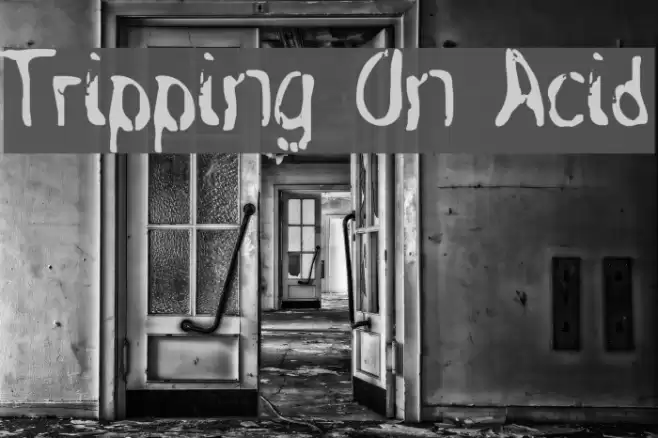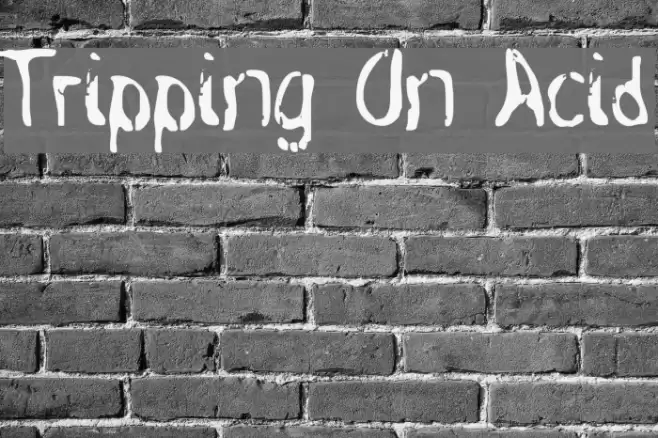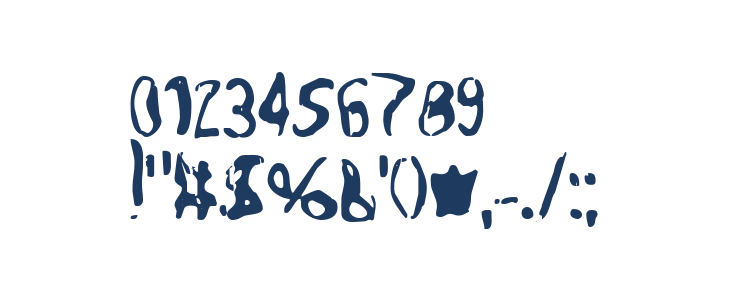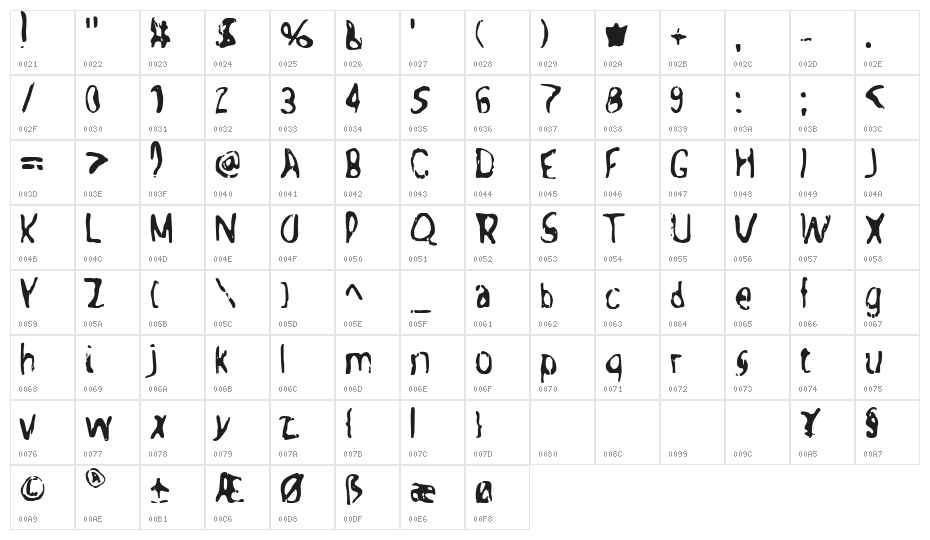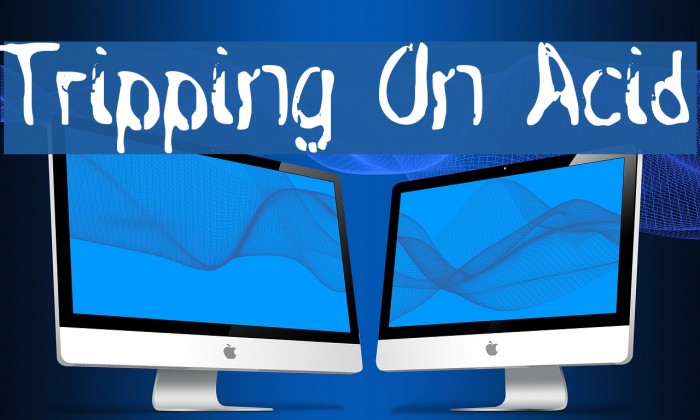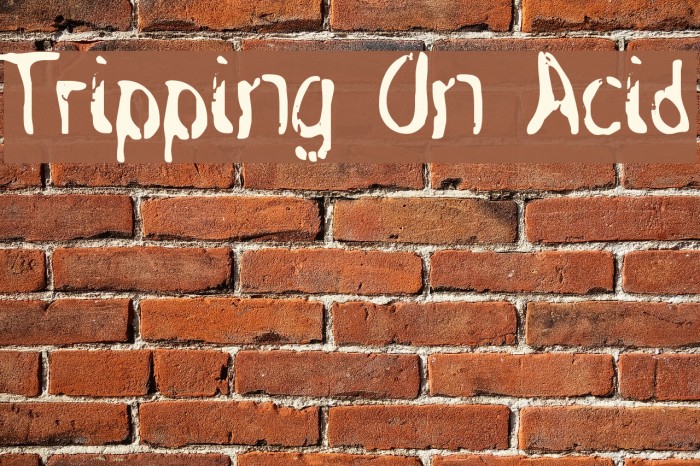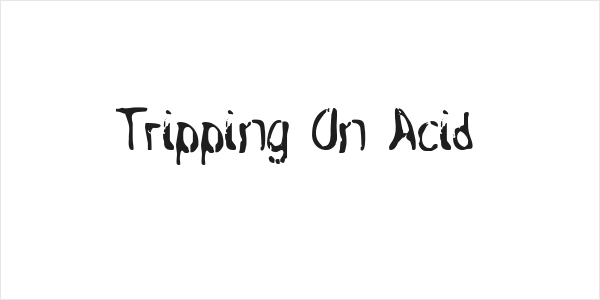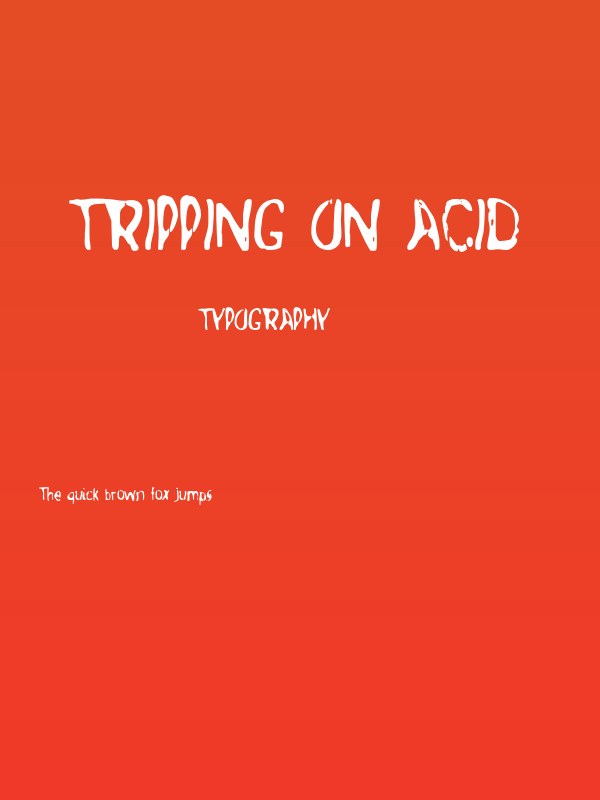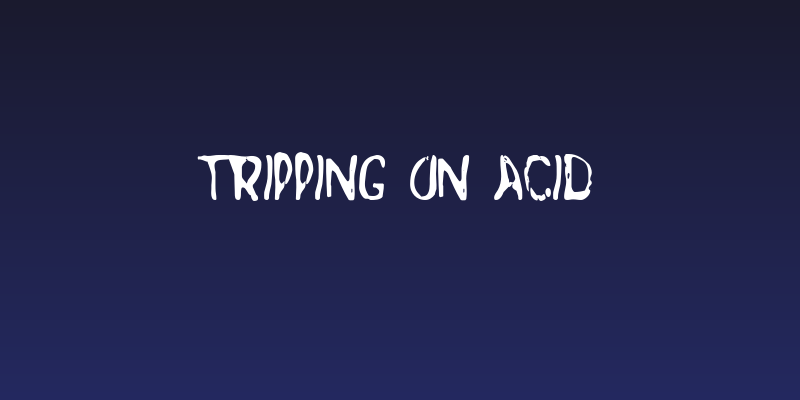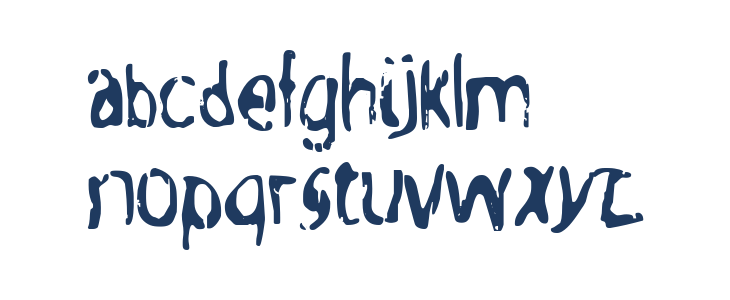
Tripping On Acid Font
Tripping On Acid Description
This font features an unconventional and psychedelic design, characterized by its irregular and distorted letterforms. The strokes are uneven, with a playful and chaotic appearance that suggests movement and fluidity. Each character seems to have a unique shape, contributing to an overall sense of unpredictability. The font's boldness and artistic flair make it stand out, with high contrast between thick and thin strokes. It evokes a sense of creativity and freedom, ideal for projects that aim to capture attention and convey a sense of whimsy or surrealism.
A psychedelic, irregular font with high contrast and a playful, chaotic style from Uncategorized fonts.
- Proposed Projects: Ideal for album covers, festival posters, psychedelic art projects, and creative branding.
- Overall Style: Psychedelic, Artistic, Whimsical
- Use Case: Headlines, Posters, Artistic Projects